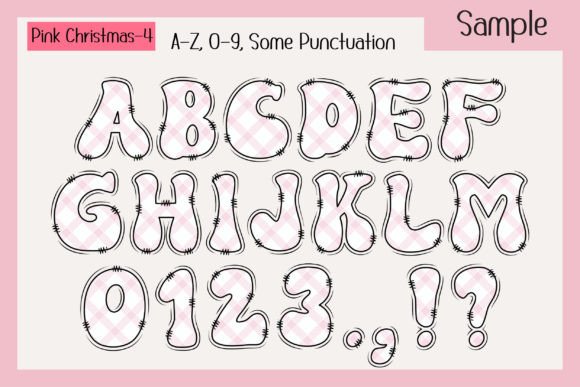
Pink Christmas Font
Introducing “Pink Christmas” a charming Christmas-themed font that features sweet pink color designs to add a feminine and festive touch to your holiday creations. This delightful font set consists of four vibrant Christmas-themed color styles and includes 20 bonus matching clip arts, providing endless creative possibilities.
Perfect for designing Christmas posters, T-shirts, branding materials, custom DIY craft projects, quotes, personalized names, and much more, “Pink Christmas” effortlessly infuses your projects with warmth, joy, and a unique pink flair. Elevate your seasonal designs with the enchanting and versatile “Pink Christmas” font, making every holiday creation truly special.